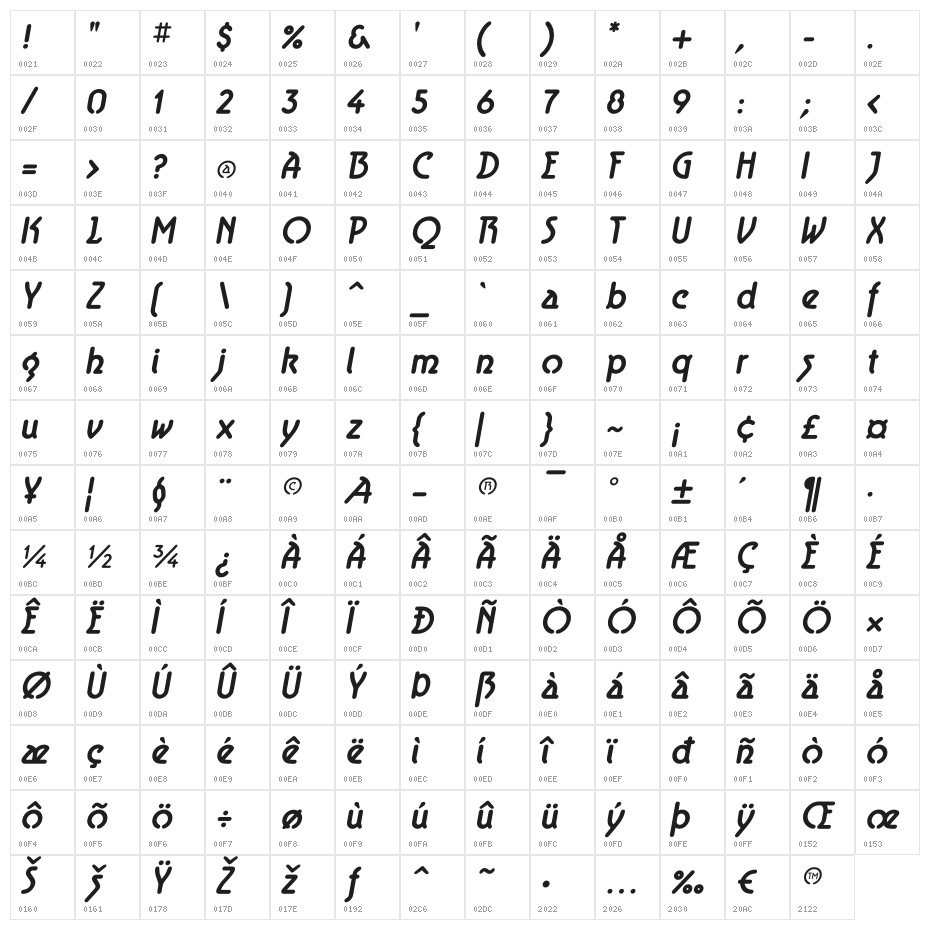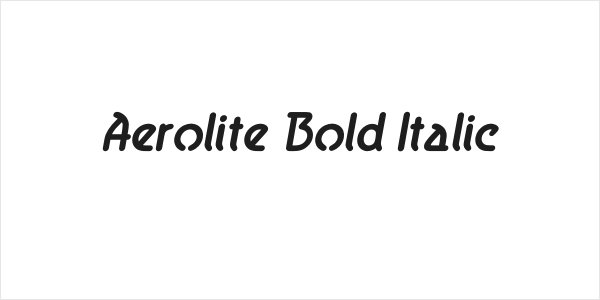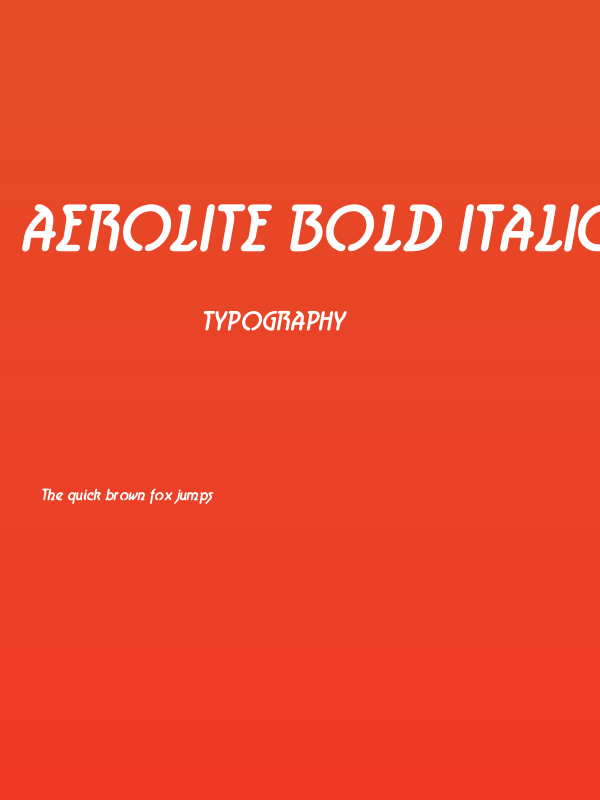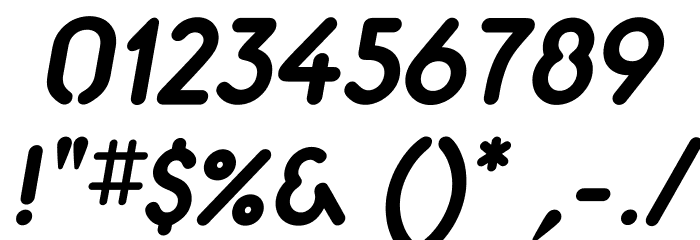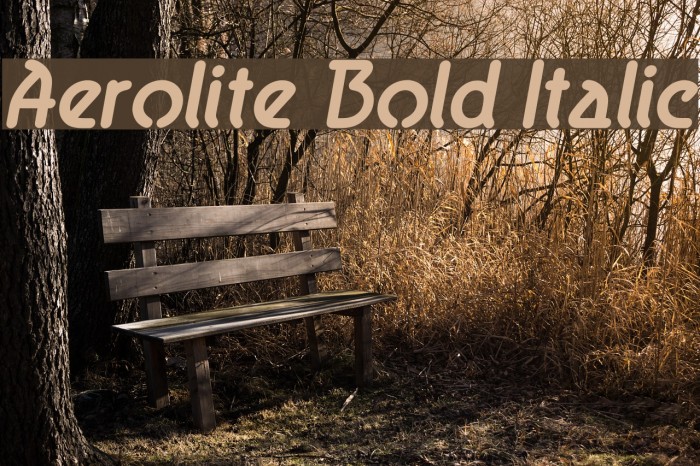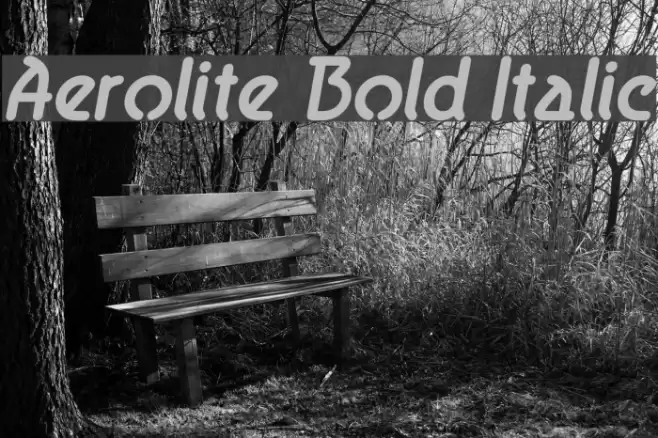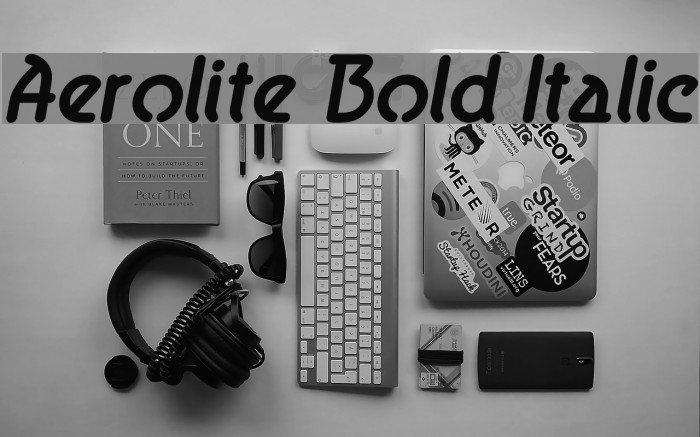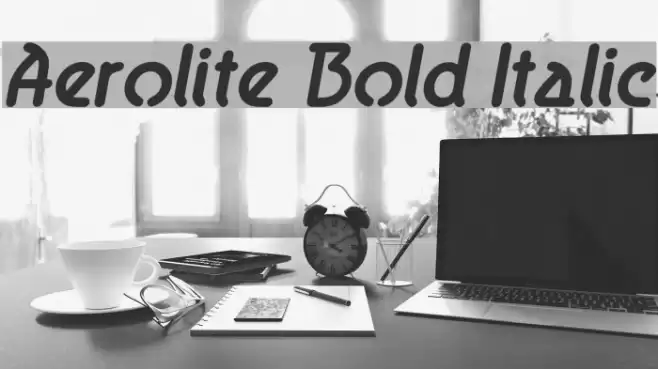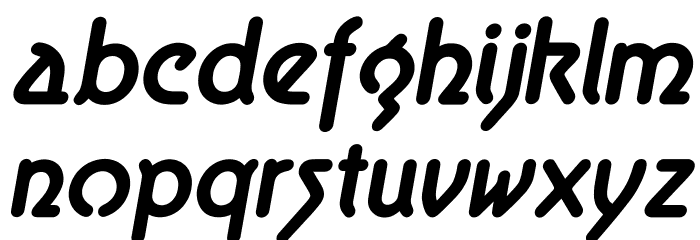
Aerolite Bold Italic Font
Aerolite Bold Italic Description
This font features a bold and italicized style with a playful, rounded appearance. The characters are slightly slanted, giving a dynamic and energetic feel. The strokes are thick and consistent, providing a strong visual impact. The uppercase letters are distinct with a slight curvature, while the lowercase letters maintain a uniform height, contributing to a cohesive look. Numbers and special characters follow the same bold and rounded style, ensuring readability and consistency across all elements.